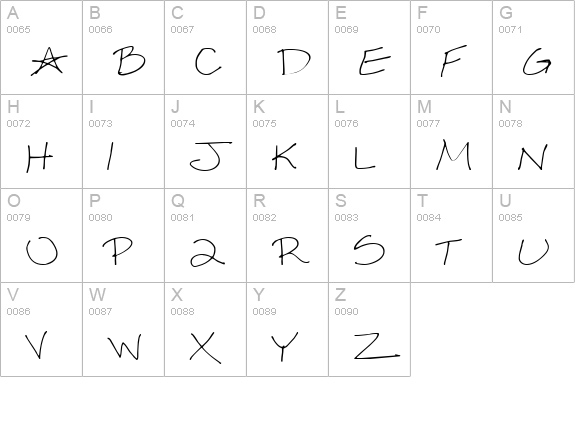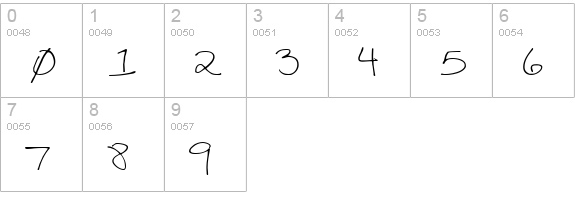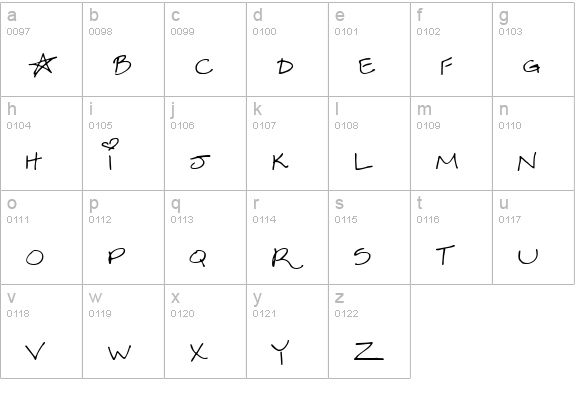
Sexy Sara Font Details
Introducing the mesmerizing Sexy Sara font, a captivating typeface that exudes elegance and sophistication. With its sleek and curvaceous letterforms, this font effortlessly adds a touch of sensuality to any design project. Whether you're crafting an invitation for a glamorous event, designing a seductive logo, or creating a sultry advertisement, Sexy Sara is the perfect choice to make a bold and alluring statement. Its smooth lines and graceful curves create an air of intrigue, captivating the viewer's attention and leaving a lasting impression. What makes Sexy Sara even more enticing is that it is freely available for download at FontsMarket.com. That's right, this exquisite font can be yours at no cost, allowing you to effortlessly incorporate its irresistible charm into your projects. With its versatility and timeless appeal, Sexy Sara is a font that is sure to elevate your designs to new heights. So go ahead, unleash your creativity, and let this seductive typeface captivate your audience. Download Sexy Sara today and watch as your designs exude an undeniable allure.